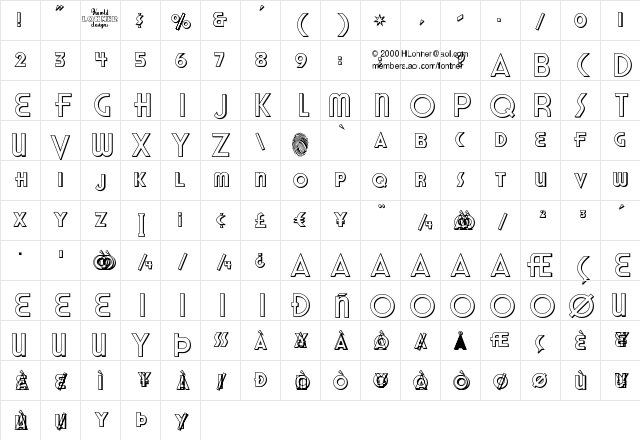
Honest John's Shadow
Style: Shadow
Honest John's Family
Design Context for Honest John's
Honest John's is built around its visual character rather than neutral utility - its distinctive forms are designed to make an impression at display sizes.
Font Pairing: Pair with a clean neutral sans-serif for body copy to let Honest John's's character lead without overwhelming the composition.
Pro Tip: Use Honest John's exclusively at display sizes - it was designed to be seen, not read at length. Let a neutral companion handle body copy.